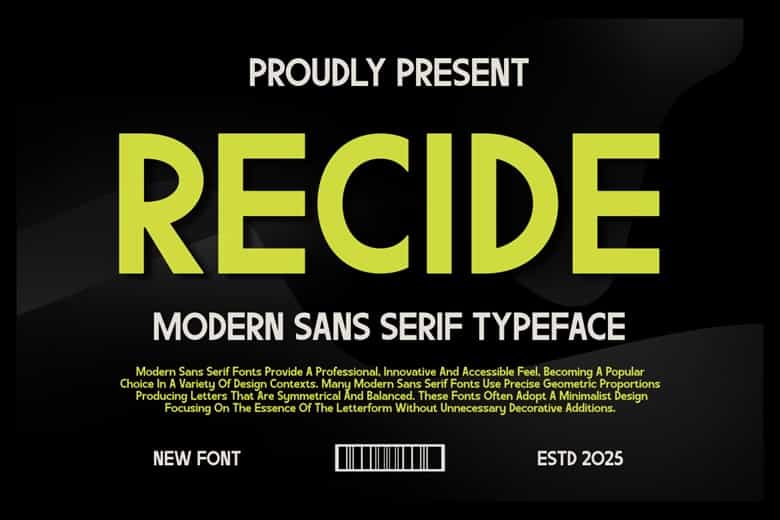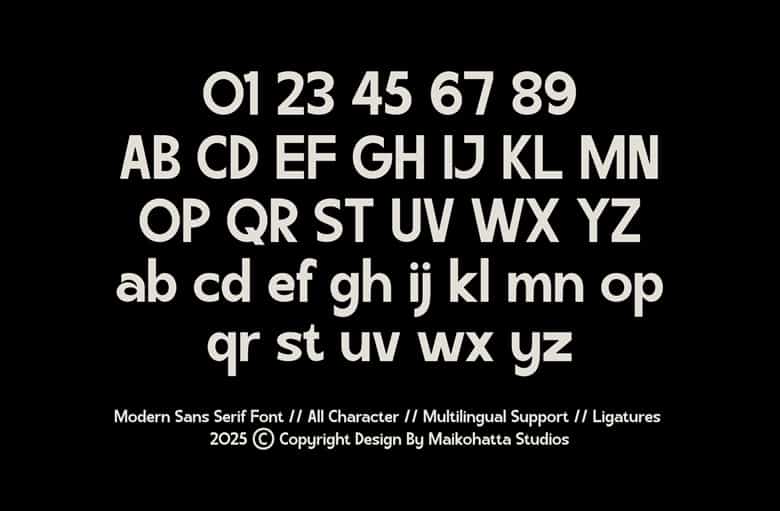
Recide is a modern sans serif typeface. This typeface can be applied in a manner that is very versatile as it can implemented to a given design in different ways. The clear, sleek and modern appearance of it and the relative ease of its design makes it suitable for the graphic design and modern typography.